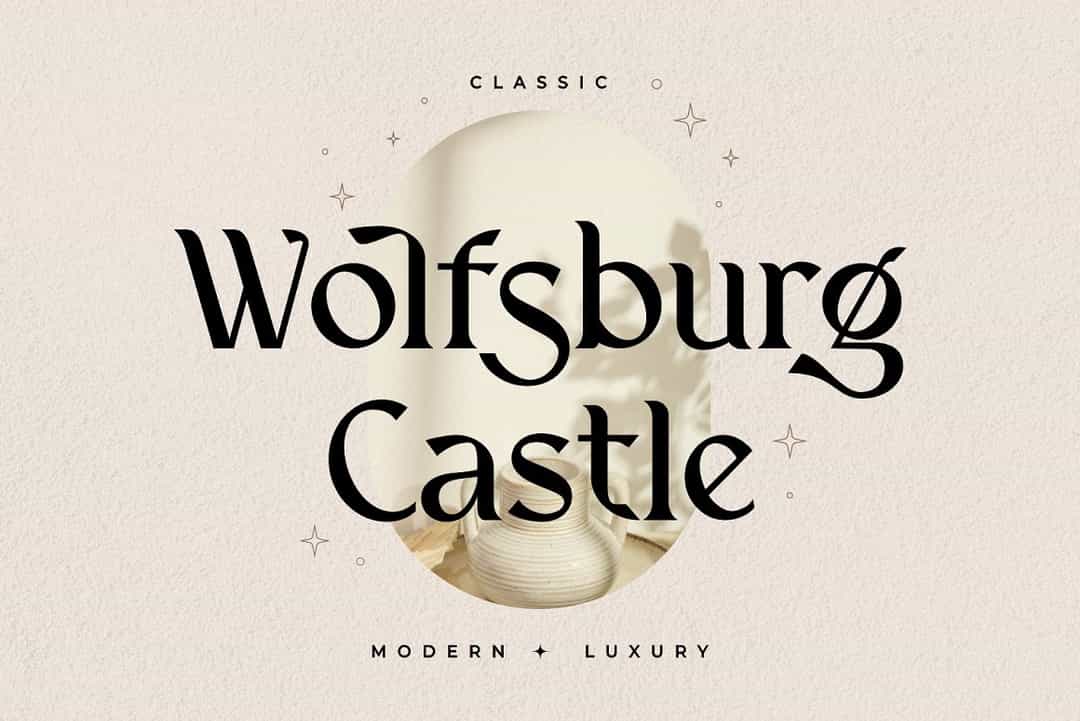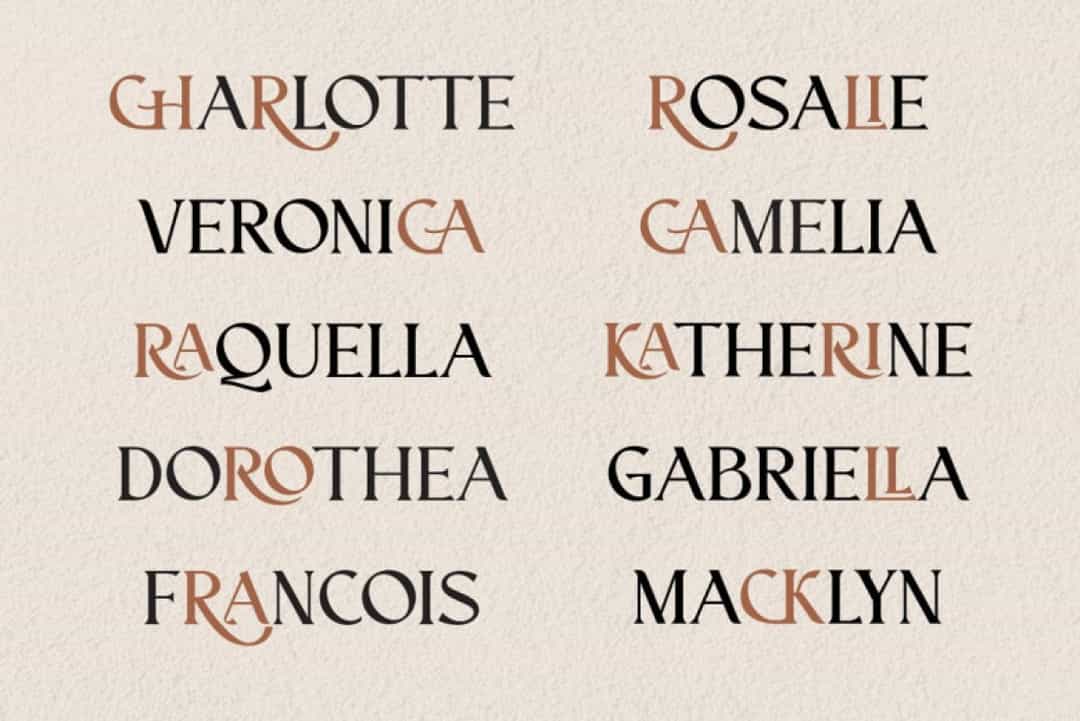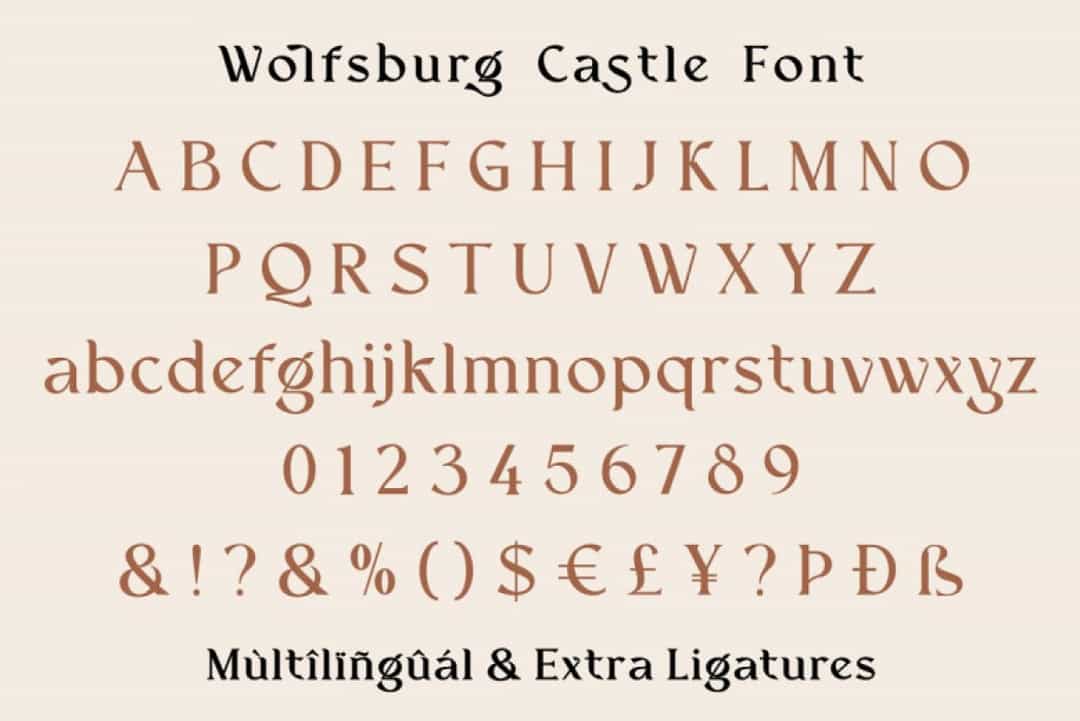
Wolfsburg Castle font is now available. Wolfsburg Castle is an elegant Serif font dripping with timeless elegance and contemporary style that adds sophistication to your designs – be they wedding invitations, branding materials or editorial projects. Wolfsburg Castle will dazzle viewers with its luxurious beauty. Wolfsburg Castle, a Serif font that radiates royal splendor, can bring that feel-good luxury right into the world of design and branding.